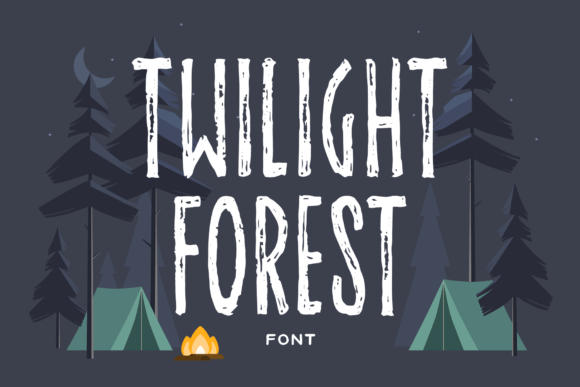
Introducing Twilight Forest Font, the ultimate choice for those in search of the best fonts for kids! Created by the talented Denise Chandler, this sans serif gem is here to bring a whole new level of creativity and playfulness to your designs.
With its condensed and rough-edged style, Twilight Forest Font effortlessly captures a casual and sketchy feel that perfectly complements illustrations, making it a must-have for any project targeting a young and lively audience.
But don't mistake its informal appearance for lack of readability! This font is designed to maintain a clean and crisp look, ensuring that your message is conveyed with clarity and impact. It strikes a remarkable balance between the carefree and the professional, making it versatile for a wide range of applications.
One of the standout features of Twilight Forest Font is its ability to shine at larger sizes. This is where the true magic of this font comes to life, as its unique texture and detail become more pronounced. Whether you're designing posters, book covers, or eye-catching headlines, Twilight Forest Font will captivate your audience and leave a lasting impression.
But what truly sets this font apart is its ability to evoke emotions and ignite the imagination. When your audience lays eyes on Twilight Forest Font, they'll be transported to a world of whimsy and adventure. This font has the power to bring stories to life, to transform ordinary text into a vibrant and captivating experience.
Why settle for ordinary when you can have extraordinary? Twilight Forest Font is the gateway to unlocking limitless creativity. Its playful nature will make your designs pop, while its polished appearance ensures a professional finish.
So, whether you're working on children's books, educational materials, or any project that aims to capture the hearts of the young and young-at-heart, Twilight Forest Font is your go-to choice. Let your imagination run wild and watch as your designs come to life with the magic of this extraordinary font.